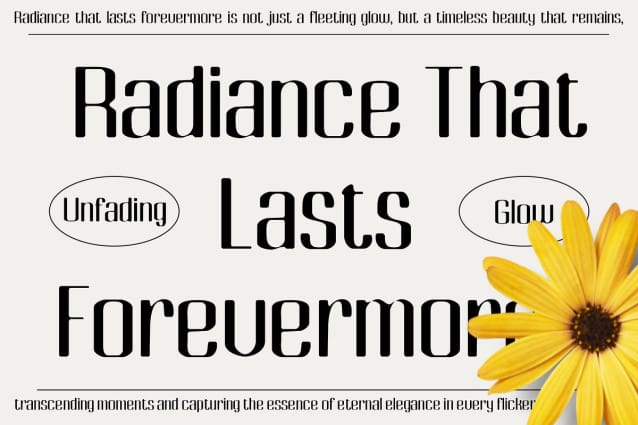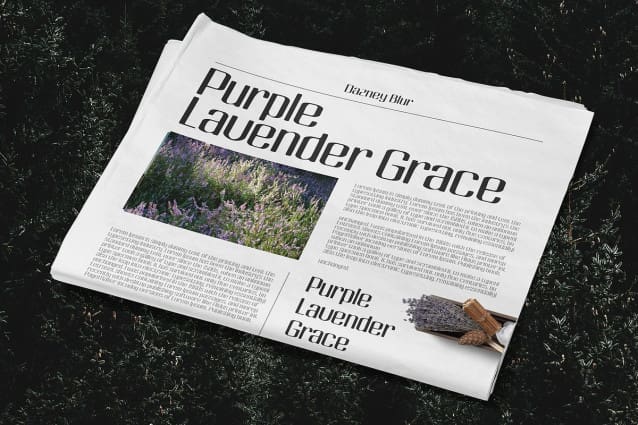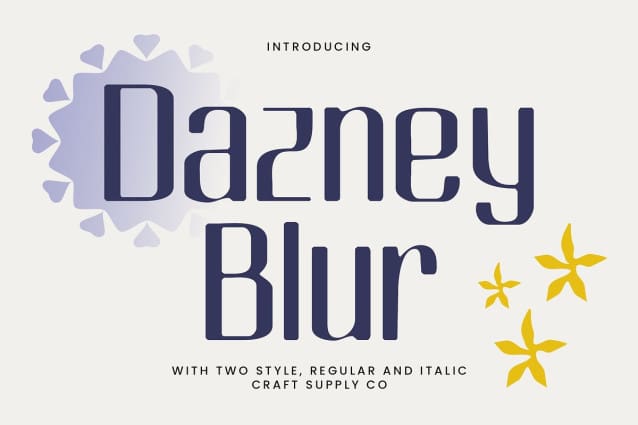
Dazney Blur Font
Dazney Blur is a contemporary sans serif font featuring a condensed design that maximizes space efficiency. Its vertically elongated proportions provide a streamlined, modern aesthetic, making it ideal for layouts that require a clean yet impactful presence. The condensed structure ensures that Dazney Blur maintains a sharp and organized appearance, perfect for both print and digital designs.
Innovative Blur Effect for Dynamic Visuals The standout feature of Dazney Blur is its artistic blur effect, which introduces a sense of motion and abstraction to the letterforms. This subtle distortion evokes a dreamy and futuristic feel, drawing attention and adding depth to your designs. The blur effect transforms simple typography into an engaging visual experience, ideal for experimental and cutting-edge projects.
Perfect for Creative and Futuristic Applications Dazney Blur is a versatile font well-suited for creative endeavors, from bold posters to innovative branding. Its modern aesthetic and artistic blur make it perfect for futuristic themes, progressive digital platforms, and experimental visual concepts. Whether for event graphics, album covers, or technology-focused branding, Dazney Blur ensures your designs make a statement.